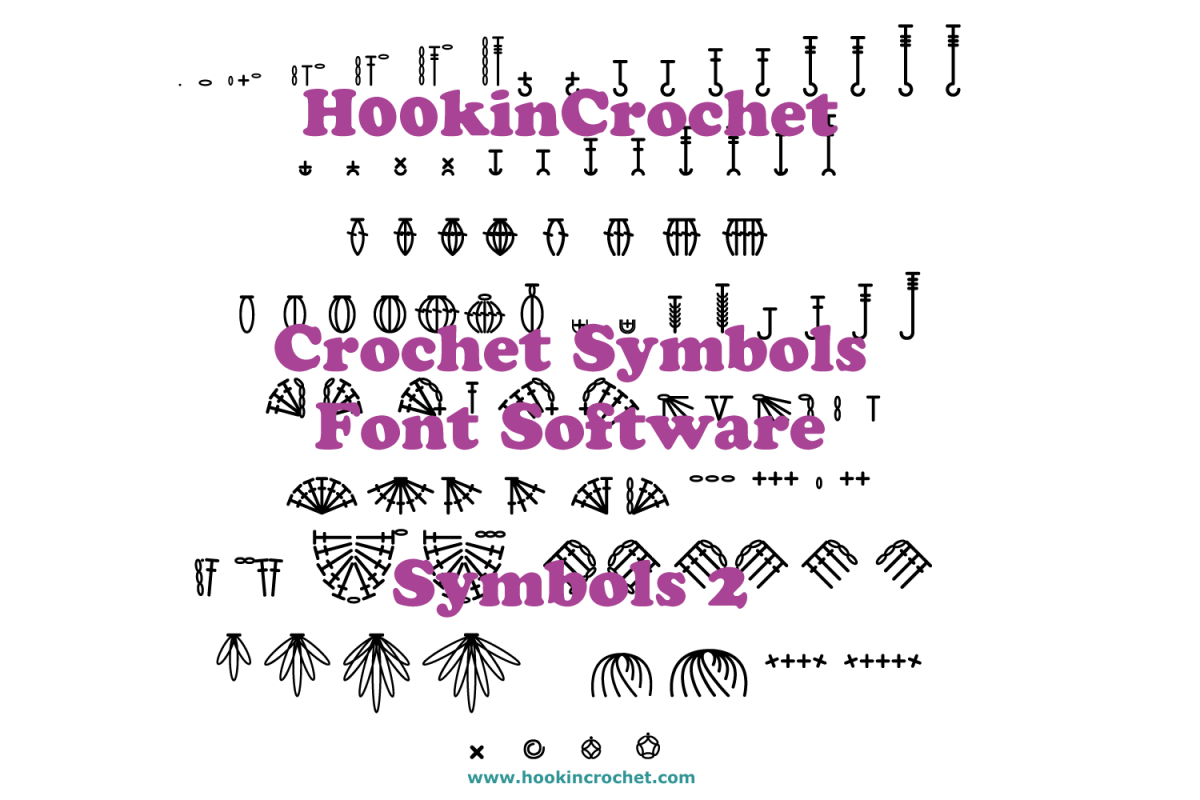
HookinCrochet Symbols 2 Font Software
Crochet Symbols Font Software for creating your own crochet symbol charts and diagrams.
The
HookinCrochet Symbol Font Software is designed, so that as
much as possible, the crochet symbols can be typed line by line and are
all inline and in proportion with each other, making creating crochet
symbols charts and diagrams an easy task.
The symbols can be used
to create crochet symbol charts and diagrams simply by typing the
corresponding characters on your keyboard.
The HookinCrochet
Crochet Symbols Font Software can be used to create charts and diagrams
for designs worked in any shape, be it in rows, in a square, in a
hexagon, in a circle, or any other shape.
HookinCrochet Symbols 2 Font Software
This
set consists of a range of basic stitches, including slip stitch,
chain, single crochet, half double crochet, treble
crochet and double treble crochet, as well as the chain stitches set at
the correct height to use with the basic stitches and turning or
starting ch 1, ch 2, ch 3, ch 4 and ch 5.
This set also includes front and back post sc, hdc, dc, tr and dtr.
This set also includes front and back loop sc, hdc, dc, tr and dtr.
It also includes cluster stitches - 2 dc cluster, 3 dc cluster, 4 dc cluster and 5 dc cluster.
It also includes cluster stitches with starting ch-3 - 2 dc cluster, 3 dc cluster, 4 dc cluster and 5 dc cluster.
As well as Clustered Spike Stitches.
And dc and tr worked into the front loop, reverse sc or crab stitch, loop stitch, double loop stitch and bullion stitches.
And Puff Stitches - 2 hdc puff stitch, 3 hdc puff stitch, 4 hdc puff stitch, 5 hdc puff stitch and japanese puff stitch.
As well as Popcorn Stitch, Bobble Stitch, and Popcorn and Bobble Stitches with starting ch-3.
This set also includes components to make up various stitch patterns, including
Slanted Shell Stitch; Corner to Corner (C2C); Star Stitch; Catherine Wheel Stitch; Crocodile Stitch; and Broomstick Lace Stitch.